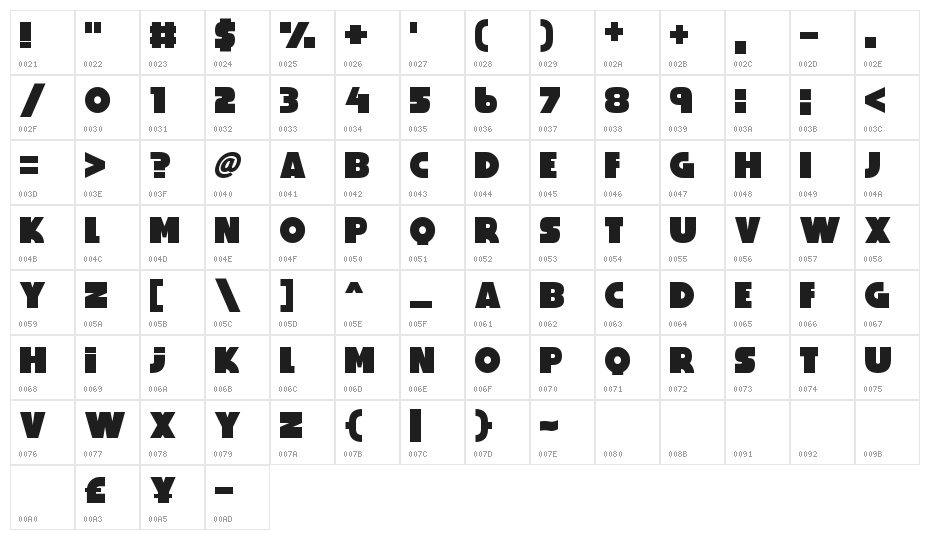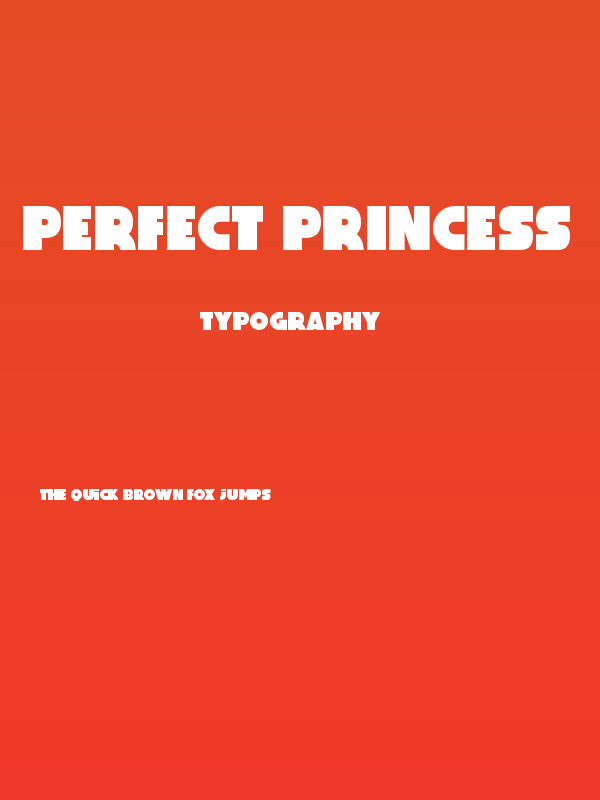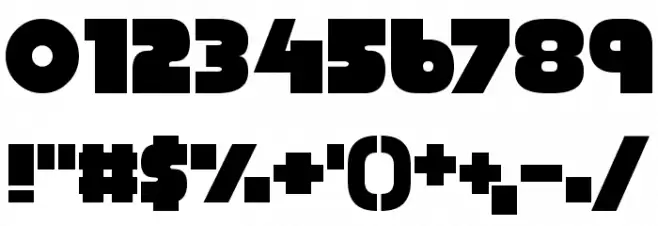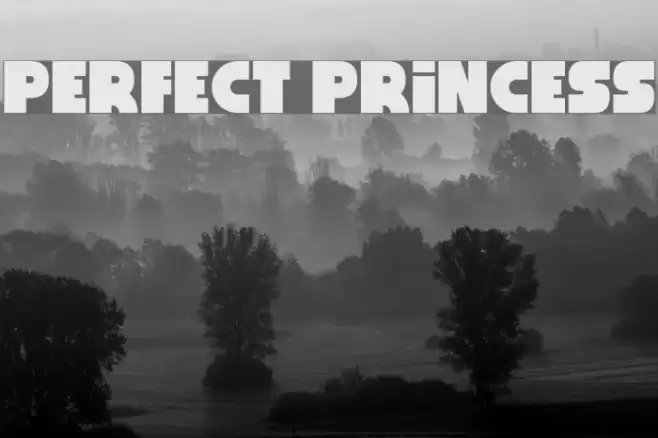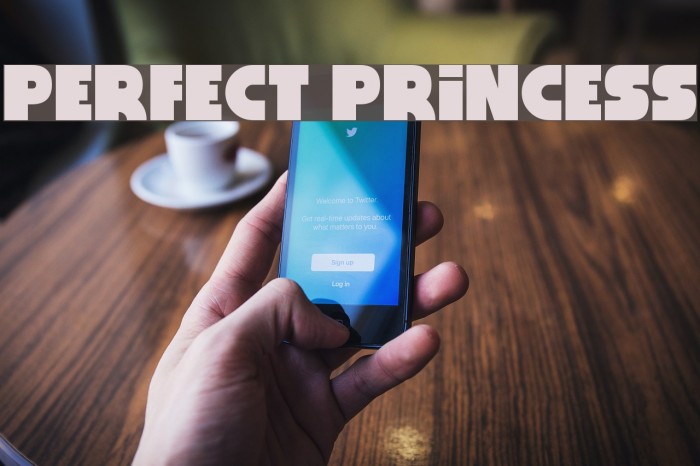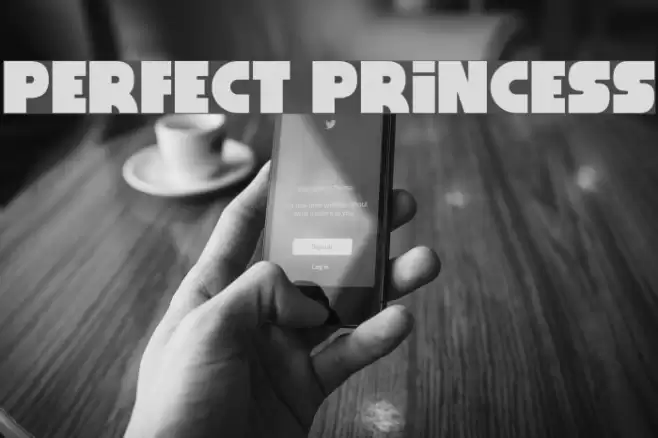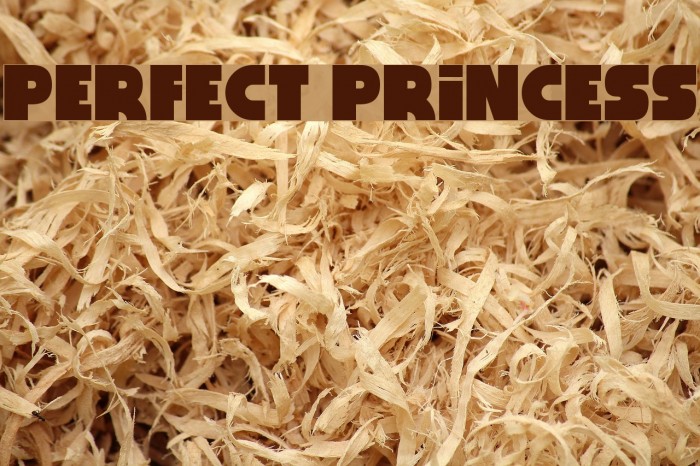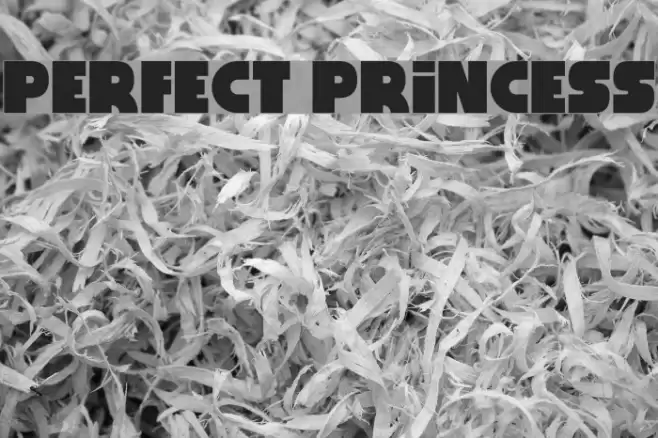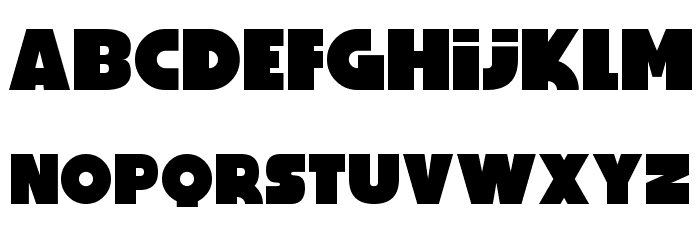
Perfect Princess Font
Perfect Princess Description
This font features a bold and geometric style with strong, block-like characters. The uppercase letters are uniform in height and width, creating a cohesive and powerful visual impact. The lowercase letters maintain the same boldness, with a slight variation in height, adding a touch of uniqueness. Numbers are equally bold and consistent, ensuring readability and a striking appearance. Special characters are designed to match the overall aesthetic, with a focus on symmetry and balance. The font's design is modern and eye-catching, making it suitable for attention-grabbing headlines and logos.
| Proposed Projects | Ideal for branding, poster design, headlines, and any project requiring a bold statement. |